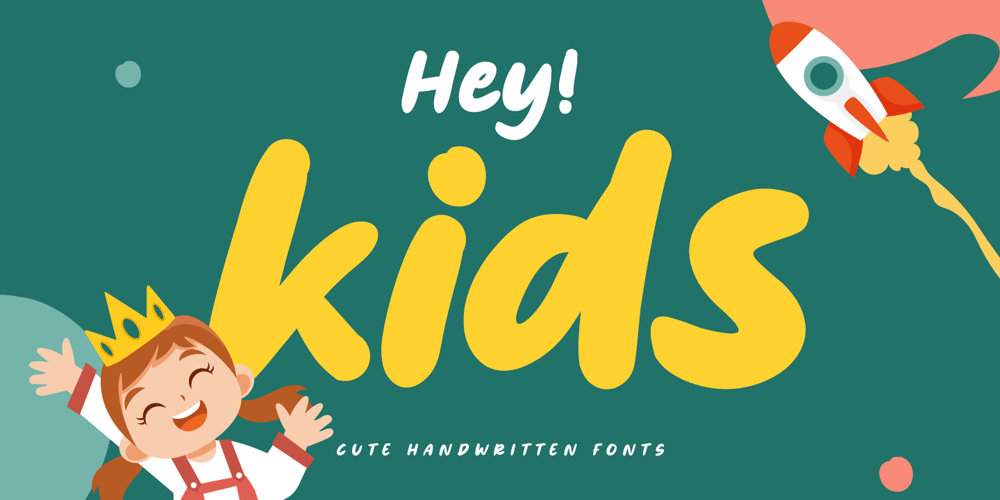
Hey Kids Font Family was designed by Toni Setiawan and published by Namara Creative Studio. Hey Kids contains 3 styles and family package options. Cute handwritten font with many possible combinations. Add playful and sweet style to your designs and notice how they come to life. Comes with Alternates, Ligatures, Multilingual Support & some Cute Accents.With 03 variant to choose : Regular, Shadow and Outline. Suitable for t-shirt design, quotes, logo packaging, template design, or any other projects that require a playful style.